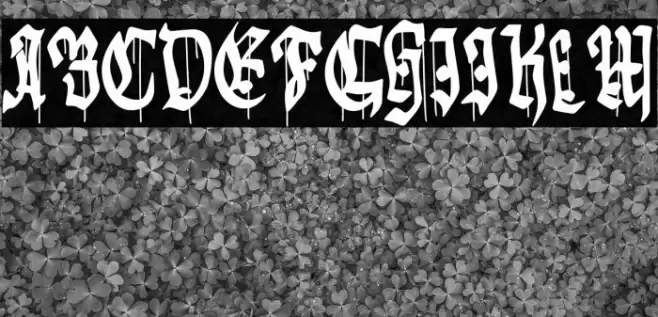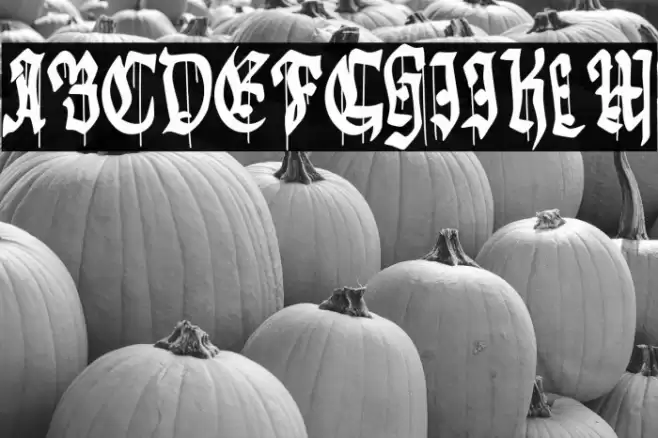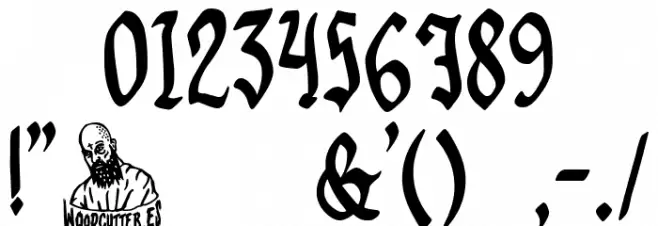
Gothic Godness Font
Gothic Godness Description
This font embodies a traditional Gothic style with intricate, sharp edges and a bold presence. The uppercase letters are particularly elaborate, featuring pointed serifs and dramatic flourishes that evoke a medieval aesthetic. The lowercase letters maintain the same stylistic elements but with a slightly more subdued appearance, allowing for readability while preserving the overall Gothic theme. Numbers and special characters are consistent with the font's ornate design, making them suitable for decorative purposes. The font's dark, heavy strokes and high contrast between thick and thin lines contribute to its striking appearance, making it ideal for projects that require a historical or dramatic flair.
A bold, Gothic-style font with intricate details and high contrast, perfect for dramatic and historical themes from Uncategorized fonts.
- Font: Gothic Godness
- Proposed Projects: Ideal for use in book covers, posters, branding for historical or fantasy-themed projects, and decorative headings.
- Overall Style: Vintage
- Use Case: Headlines, Logos, Decorative text